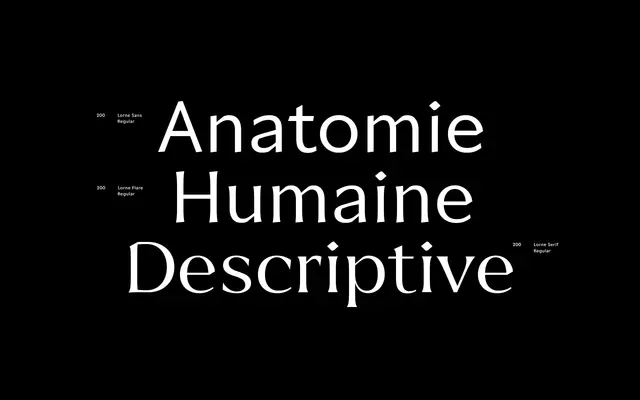
Lorne Variable
Juri Zæch · Juri Zæch
A variable font family from Juri Zæch spanning sans, flared and serif sub-styles across six shared weights, with an array of OpenType alternates including Celtic caps and script ampersands.
Lorne Variable brings three related styles — Sans, Flare and Serif — into a single variable family of 19 styles, all sharing a common weight range from Light to Black. OpenType features include Celtic caps, classic O and Q forms, double-storey g, two ampersand variants, discretionary ligatures and fractions, giving designers substantial typographic control. The breadth of alternates and the three-way stylistic split make it suited to editorial and branding work where tonal range within a single family is useful.
The family presents three distinct sub-styles — Sans, Flare and Serif — across shared weights, suggesting a humanist sans with flared and serif variants rather than a purely geometric or grotesque construction.